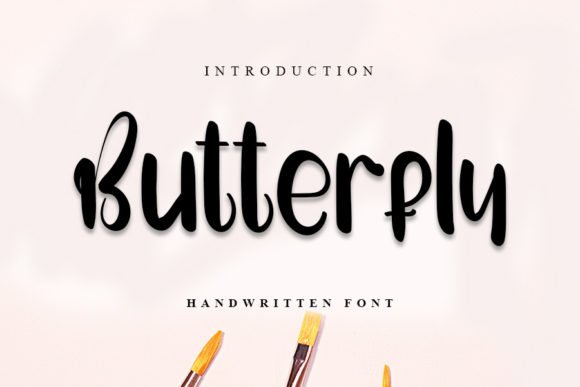
Unleash the Beauty of Handwritten Love with the Butterfly Font
Have you ever felt the rush of excitement when you’re working on a creative project, and suddenly, the perfect font pops into your mind? It’s that moment when everything comes together, and your design takes on a life of its own. For designers and crafty enthusiasts, finding the perfect font can be a game-changer. And, trust us, we’re about to introduce you to a true gem – the Butterfly Font.
This dainty and unique script font is a must-have for any romantic project. Whether you’re writing love letters, creating wedding invitations, or designing a special keepsake, the Butterfly Font adds a touch of whimsy and elegance. Its beauty lies in its simplicity, making it a valuable asset for designers who want to create something truly special. So, get ready to fall in love with the Butterfly Font and take your designs to new heights!
Key Features of Butterfly Font
- Unique Characteristics: Butterfly Font features a unique, hand-drawn design with intricate details and subtle flourishes, giving it a distinctive and elegant appearance.
- Kerning and Ligatures: Butterfly Font includes advanced kerning and ligature features, ensuring that the font looks polished and professional in a variety of text settings.
Designer Review: Butterfly Font
At first glance, the Butterfly Font is a charming addition to any design project. ✨ Its whimsical and elegant style instantly captures the user’s attention and invites exploration. The font’s delicate flourishes and intricate details make it perfect for creating eye-catching headings, titles, or even entire branding systems.
- Unique style that stands out from the crowd
- Perfect for creative and artistic projects
- Highly customizable with various font weights and sizes
- Works well with a wide range of color schemes and backgrounds
However, there are some limitations to consider. ⚠️ The font may appear overwhelming or cluttered if used extensively in large blocks of text. Additionally, the font’s intricate details may not be suitable for projects requiring a clean and minimalist aesthetic. In some cases, the font may also struggle to maintain legibility at very small font sizes.
Overall, the Butterfly Font is a great choice for designers seeking a distinctive and visually appealing font for creative projects. While it may not be the best fit for every design scenario, its unique style and high customizability make it a valuable addition to any design toolkit.
The Butterfly Font is perfect for:
– Children’s book illustrations
– Wedding invitations
– Party decorations
– Branding materials
To get the most out of the Butterfly Font, try combining it with other playful fonts or illustrations to create a whimsical look. You can also use it to add a touch of elegance to your designs by pairing it with more formal fonts. Experiment with different font sizes and styles to create visual interest.